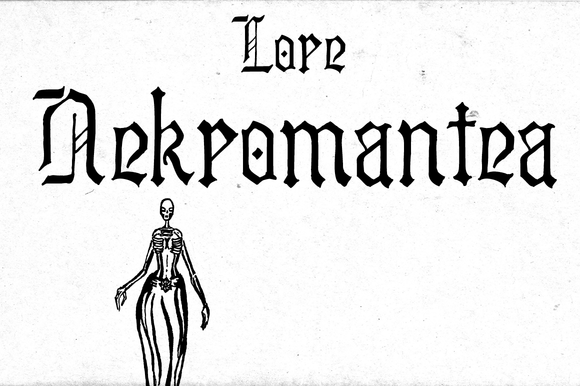
Unleash the mystique of the unknown with Lore Nekromantea, the strikingly elegant blackletter font family that will cast a spellbinding charm on your designs. Crafted by the skilled hands of Dawnland, Lore Nekromantea is more than just a font; it's an invitation to explore the realms of mystery and intrigue, to let your imagination run wild in a world of captivating creations.
With its intricate details, sweeping curves, and an air of ancient wisdom, Lore Nekromantea instantly transports you to a bygone era, where secrets whispered in the shadows and magic coursed through the veins of the land. Its bold presence commands attention, while its intricate flourishes add a touch of sophistication that will elevate your designs beyond the ordinary.
Whether you're conjuring up logos that exude an air of mystery, crafting invitations that hint at hidden realms, or designing posters that evoke a sense of adventure, Lore Nekromantea is the perfect companion for your creative endeavors. Its versatility knows no bounds, adapting seamlessly to a variety of projects, from branding and marketing materials to website designs and social media graphics.
So, step into the realm of the unknown and let Lore Nekromantea guide you through a world of captivating designs. Embrace the allure of the mystical, let your imagination soar, and create designs that leave a lasting impression on all who encounter them. Immerse yourself in the depths of creativity and let Lore Nekromantea be your beacon, illuminating your path to design excellence.